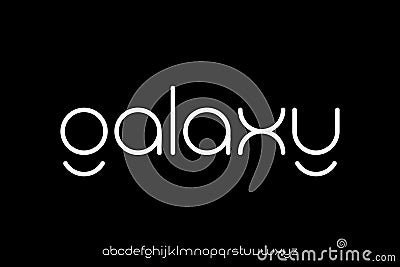
Creative Unique Modern Rounded Lowercase Font Vector
Creative unique modern rounded lowercase font vector. Modern typography style for logo, technology, and business branding.